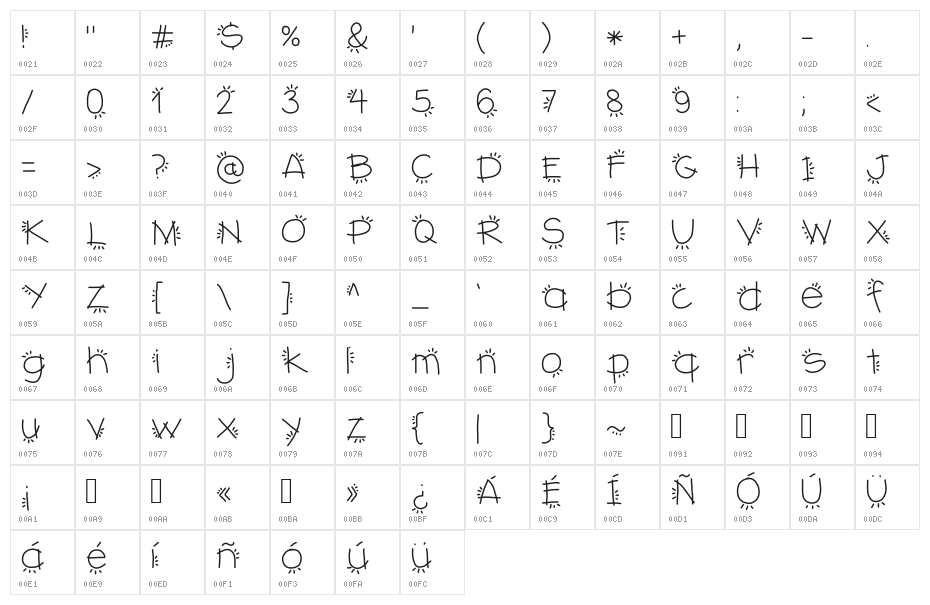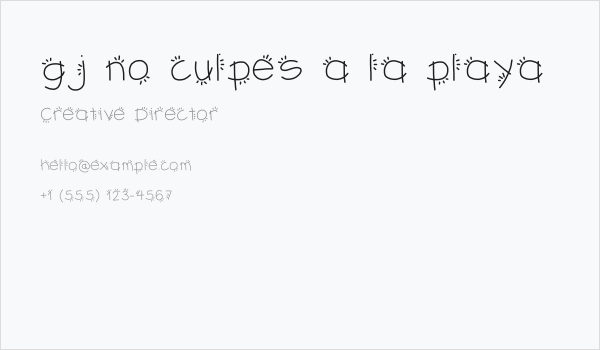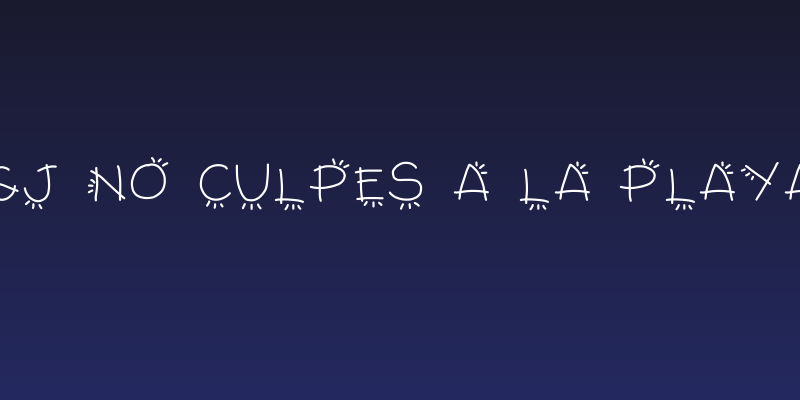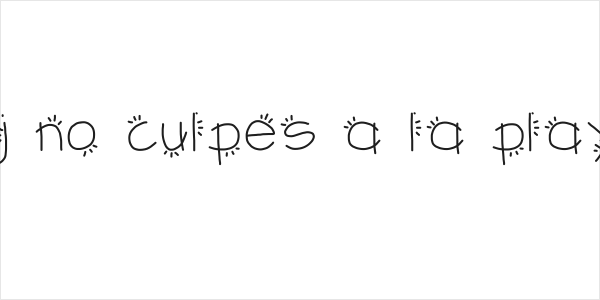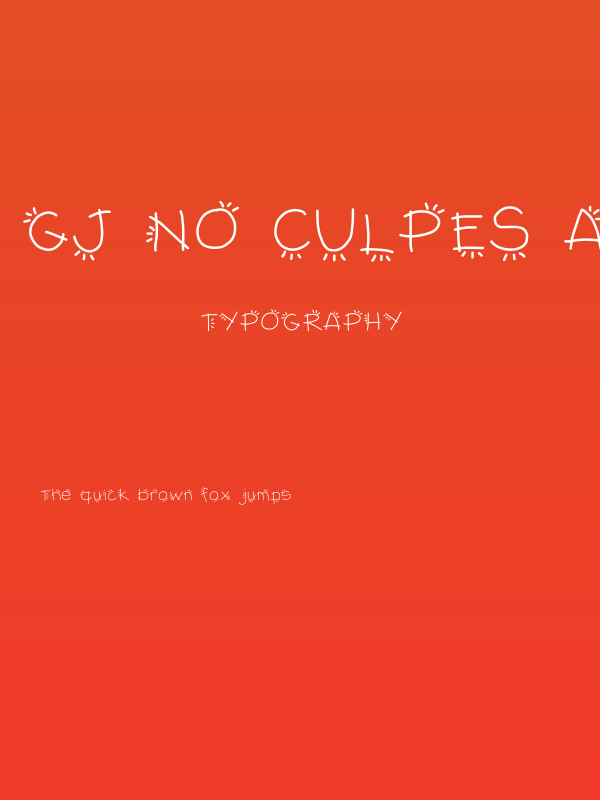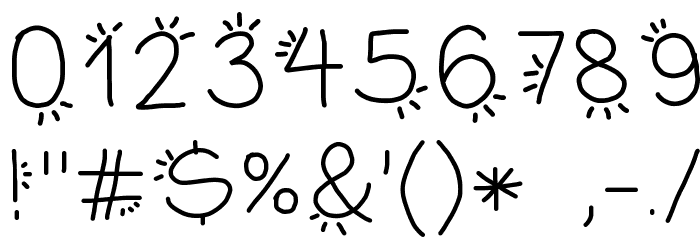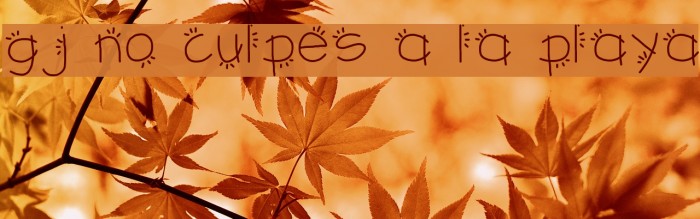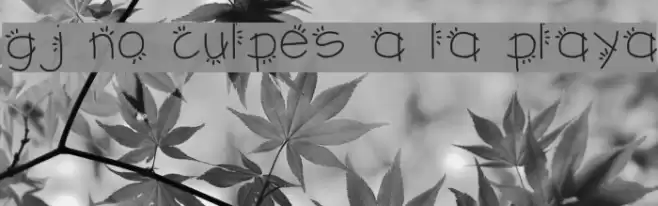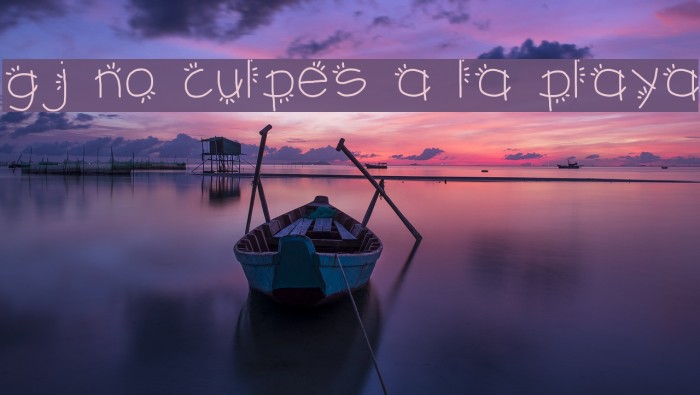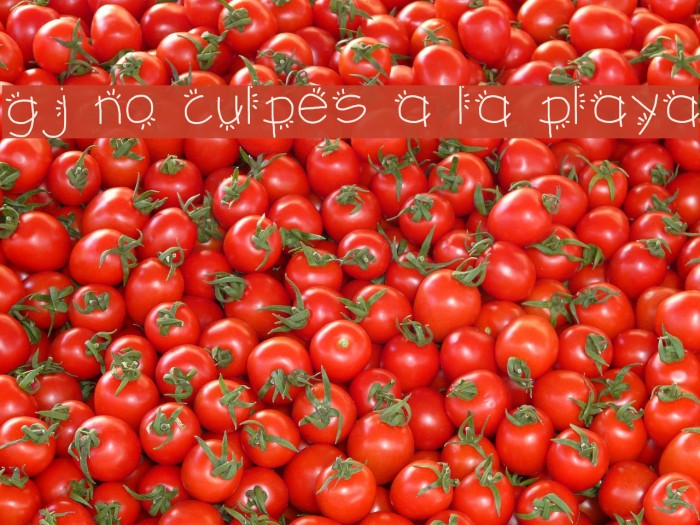
gj no culpes a la playa Font
gj no culpes a la playa Description
This font features a playful and whimsical design with unique decorative elements. Each character is adorned with small, sunburst-like accents that give it a lively and energetic feel. The strokes are consistent in width, providing a uniform appearance across all characters. The uppercase and lowercase letters maintain a cohesive style, while the numerals and special characters integrate seamlessly with the overall design. This font's distinctive embellishments make it stand out, adding a touch of fun and creativity to any project.